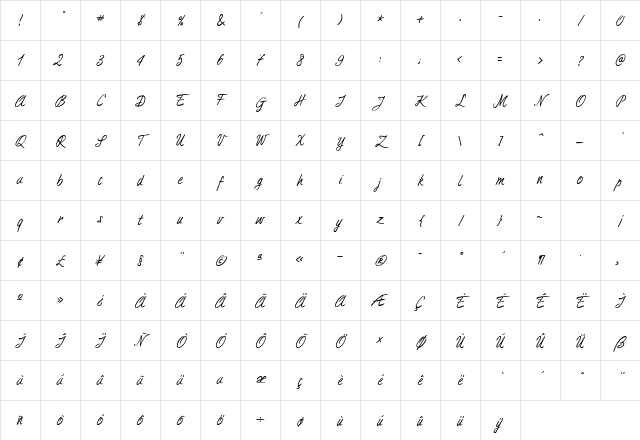
DuTurner Regular Free Font
DuTurner Regular
Design Context for DuTurner
DuTurner is a composed and adaptable typeface that performs quietly and consistently across a wide range of design contexts.